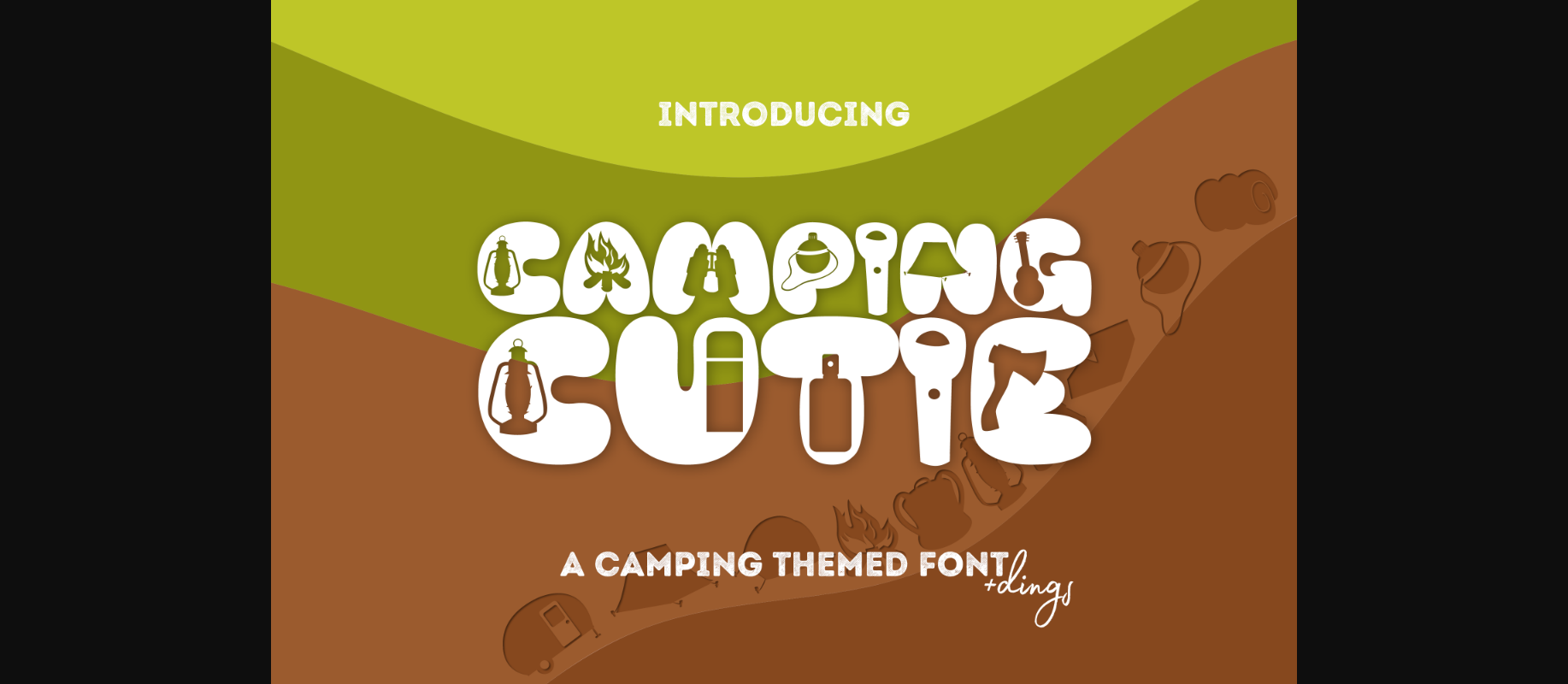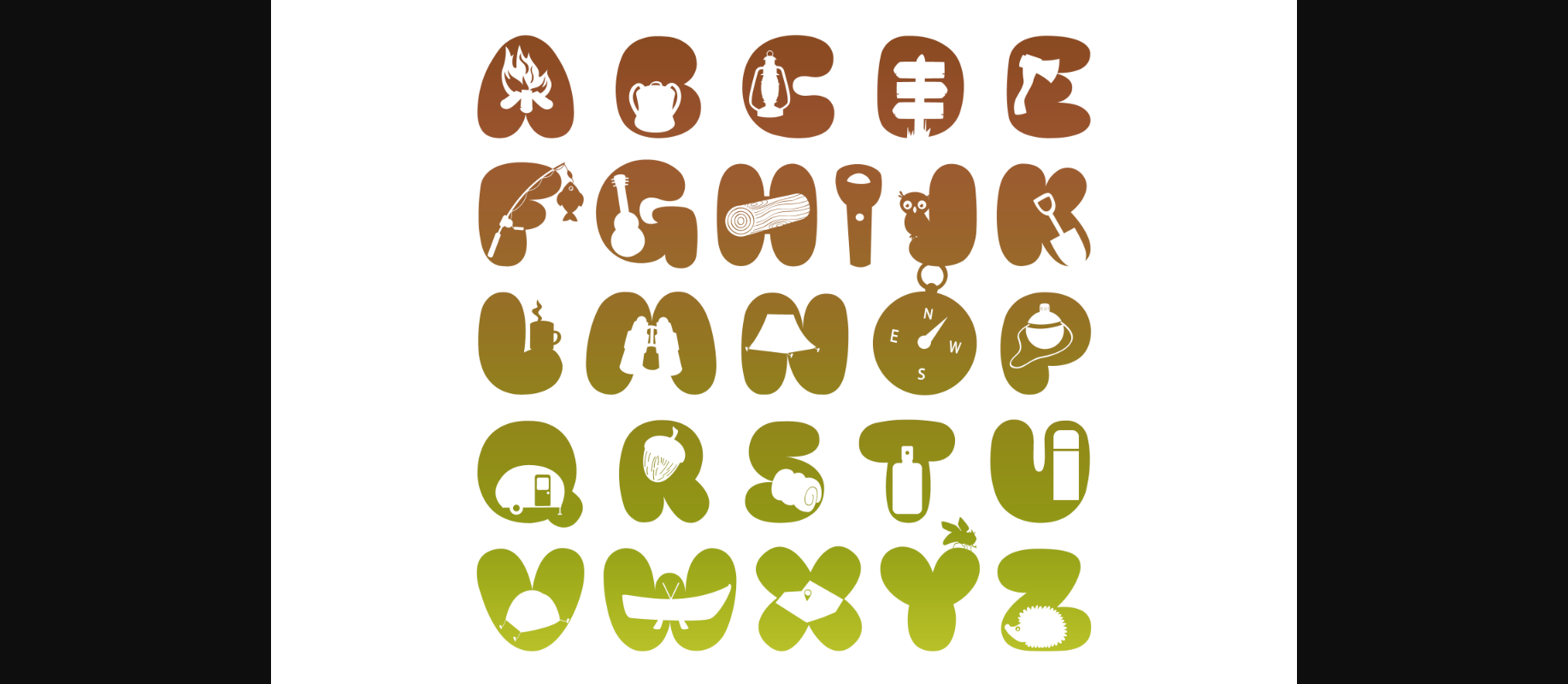
About Camping Cutie Font
Camping Cutie is a lovely decorative font, perfect for camping projects! Add it to apparel designs, stationery, camping gear, and so much more!